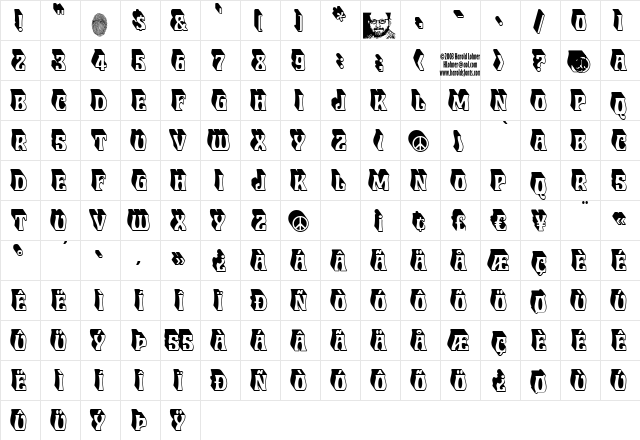
Roberta Raised Shadow Regular
Design Context for Roberta Raised Shadow Typeface
Roberta Raised Shadow is built around its visual character rather than neutral utility — its distinctive forms are designed to make an impression at display sizes.
Font Pairing: Pair with a clean neutral sans-serif for body copy to let Roberta Raised Shadow's character lead without overwhelming the composition.
Pro Tip: Use Roberta Raised Shadow exclusively at display sizes — it was designed to be seen, not read at length. Let a neutral companion handle body copy.